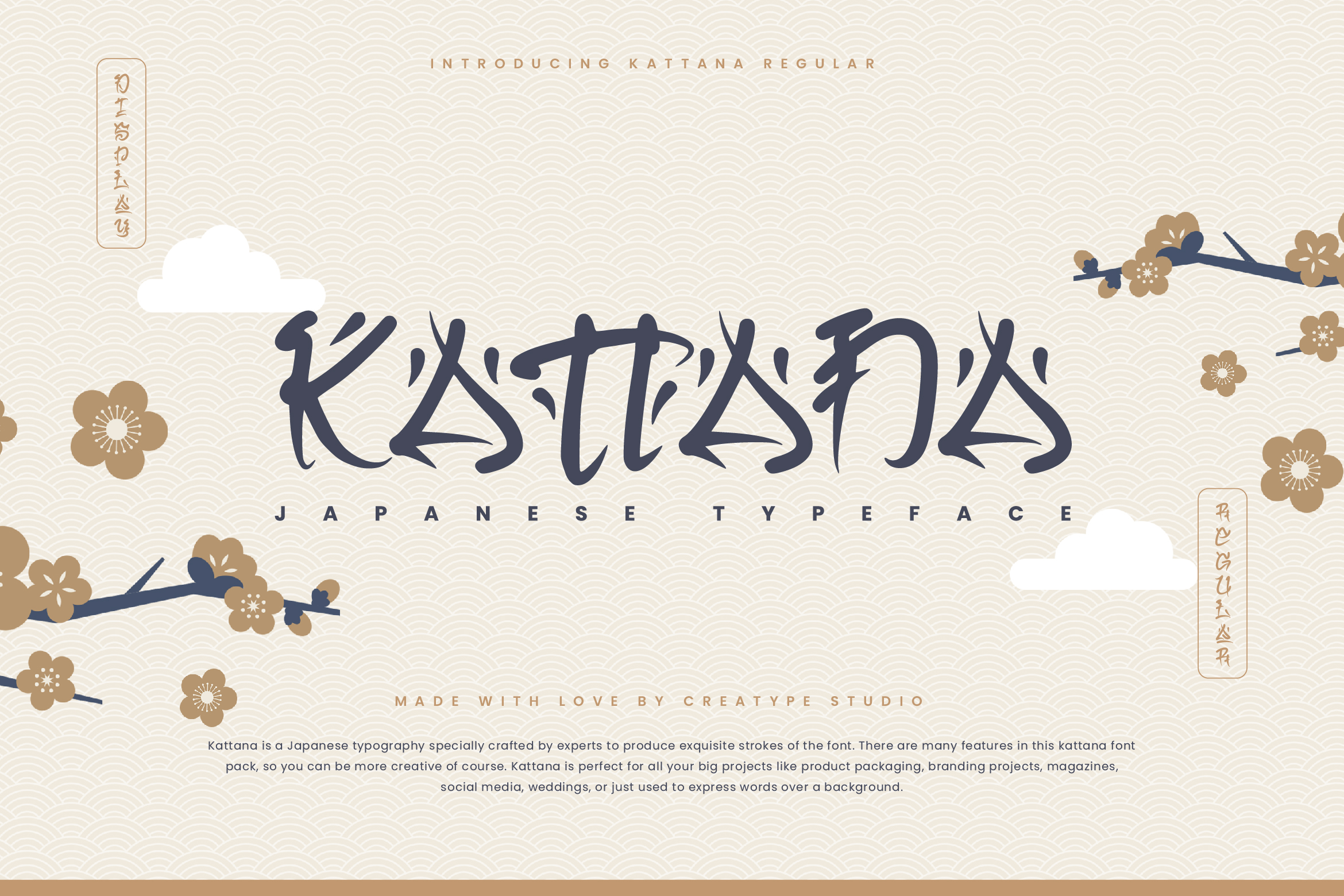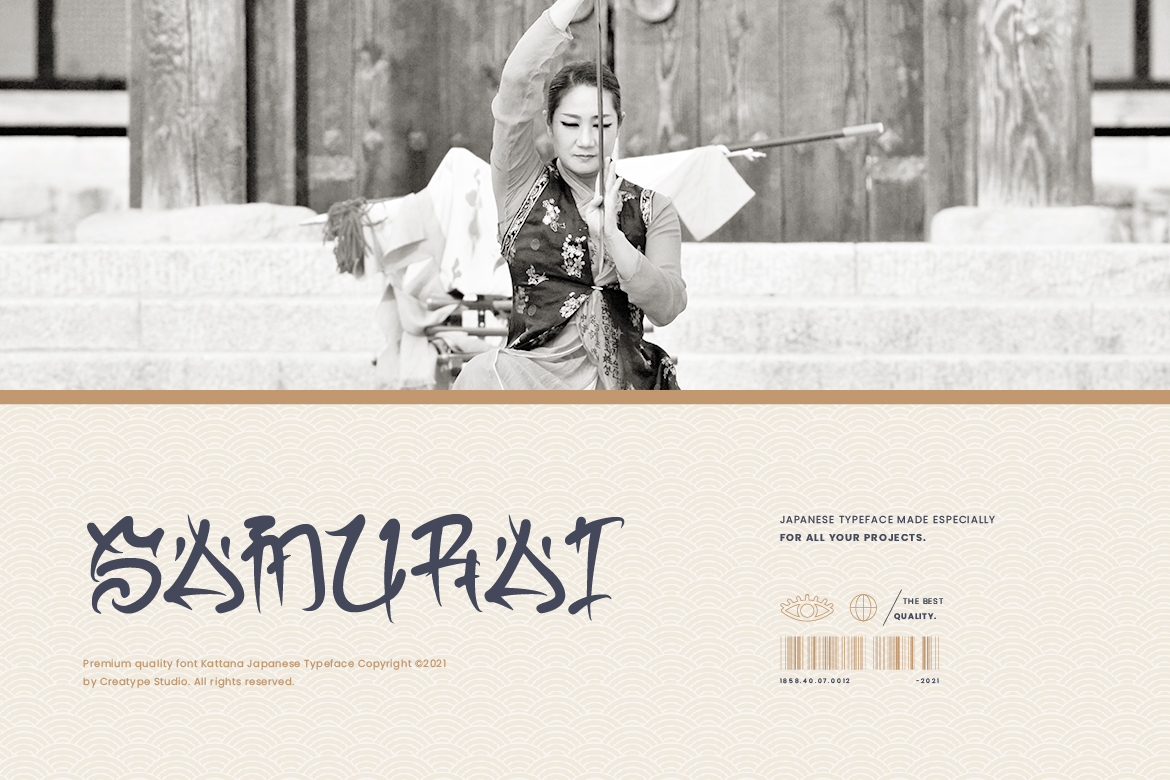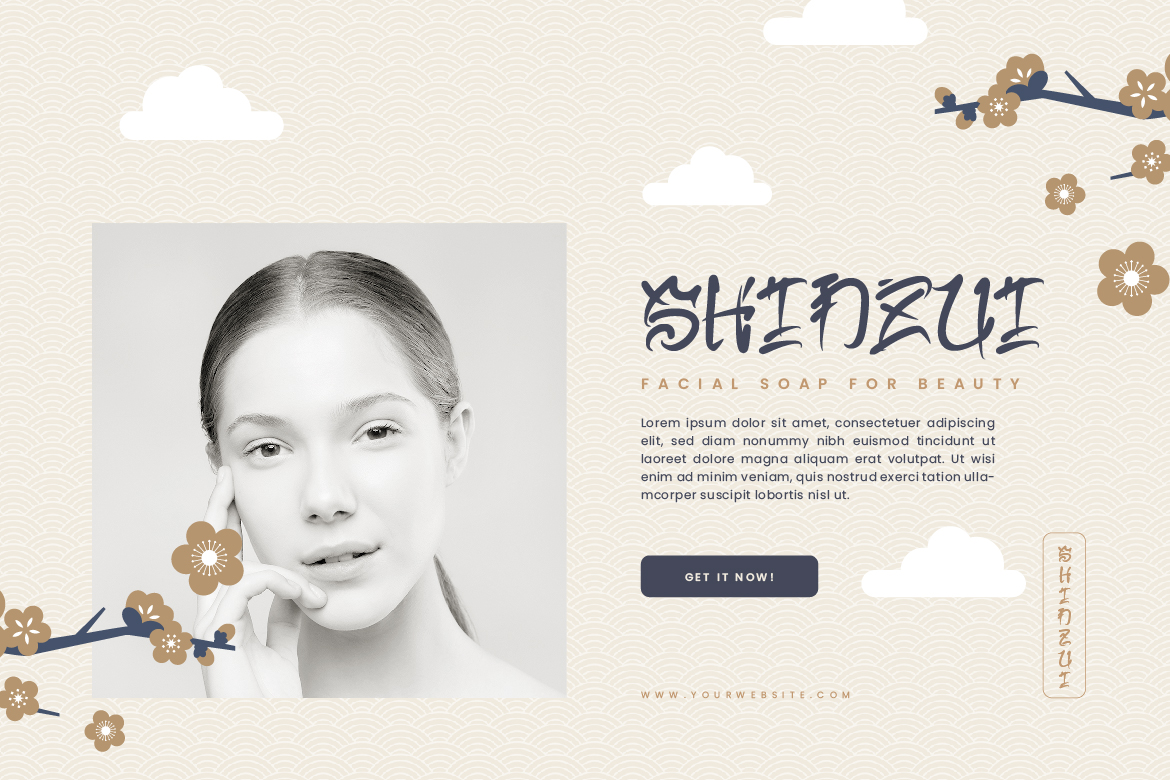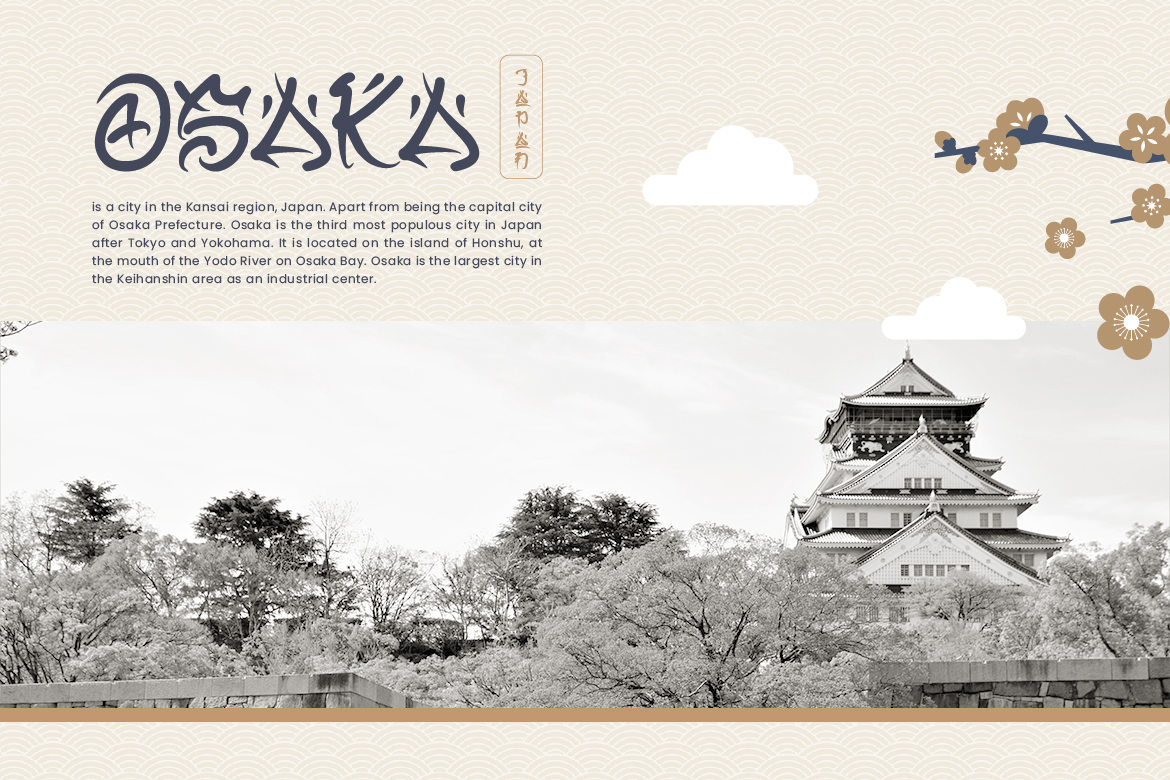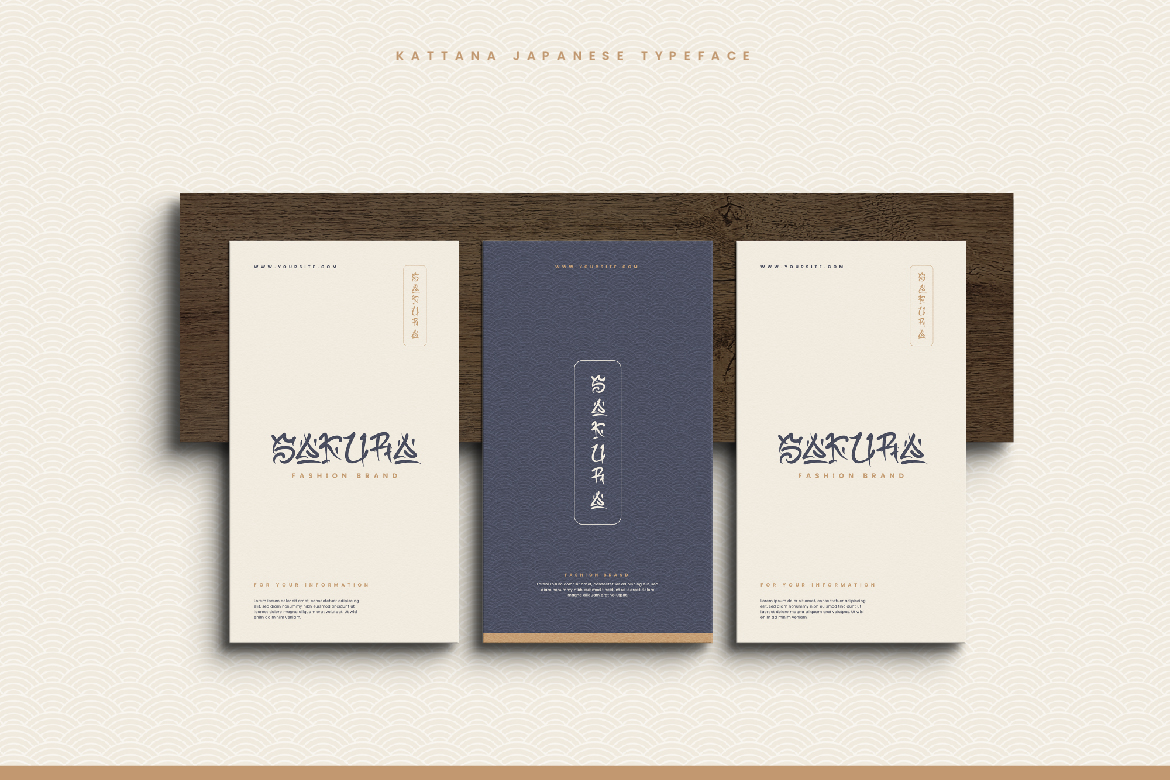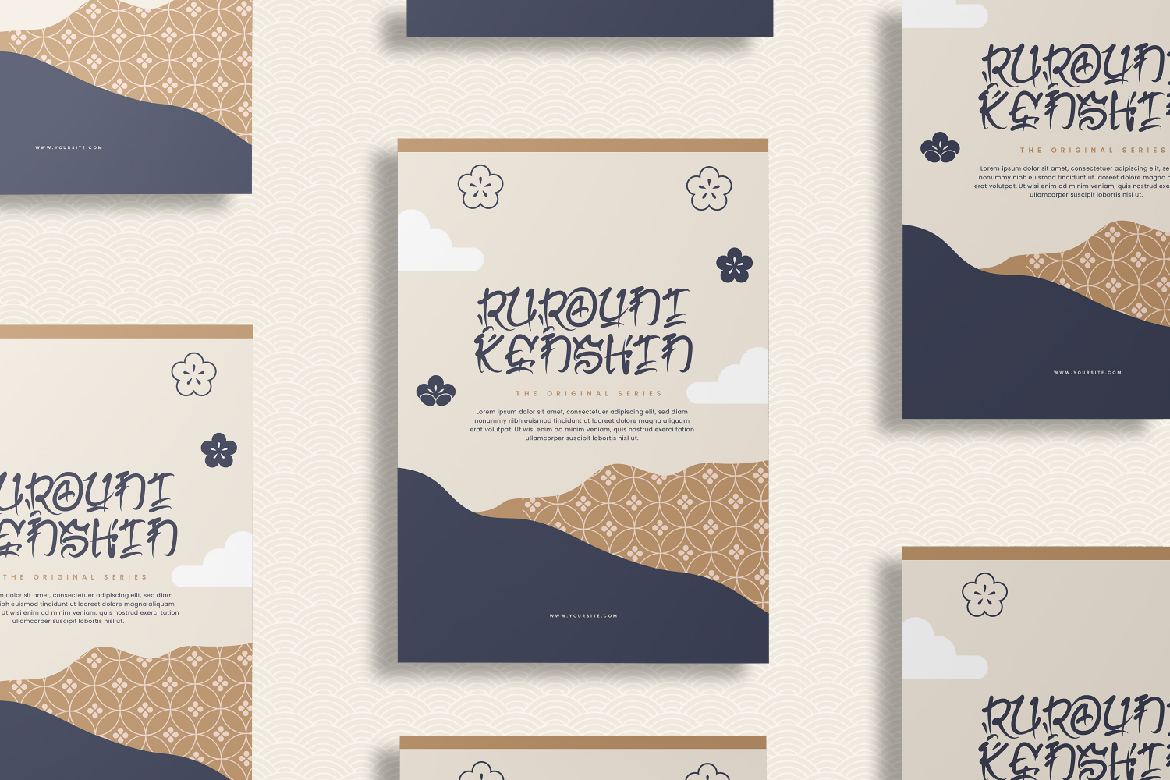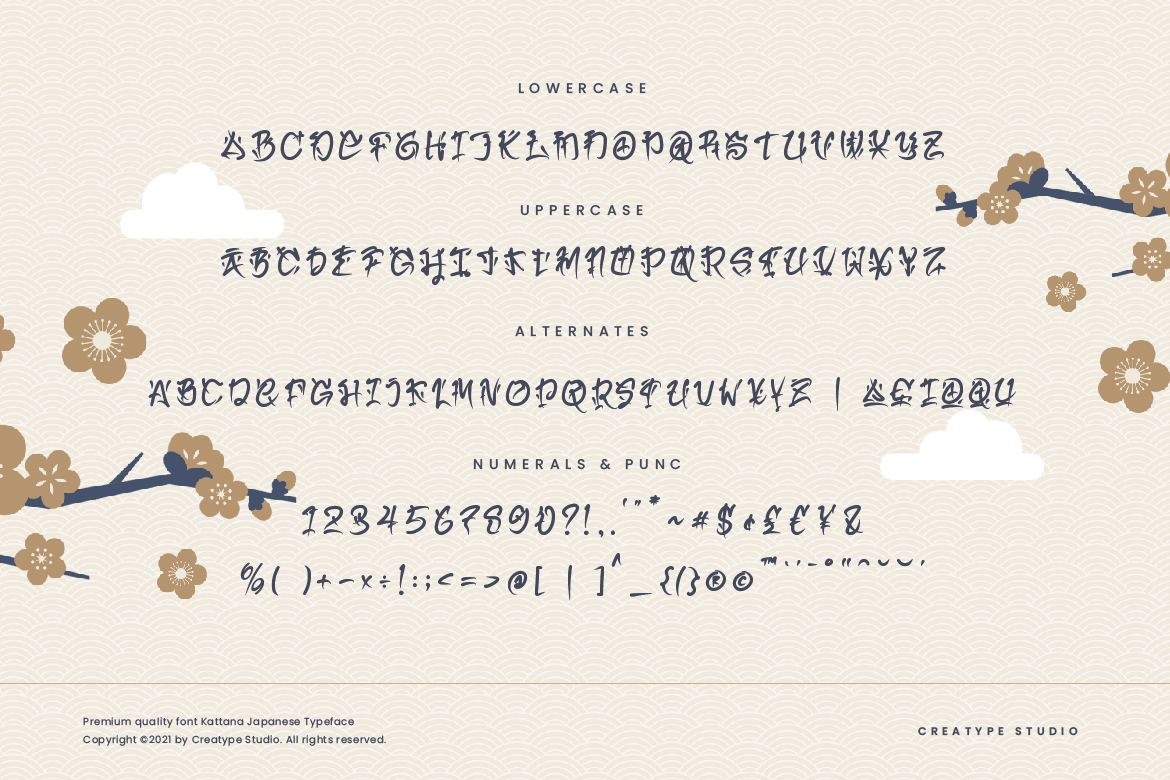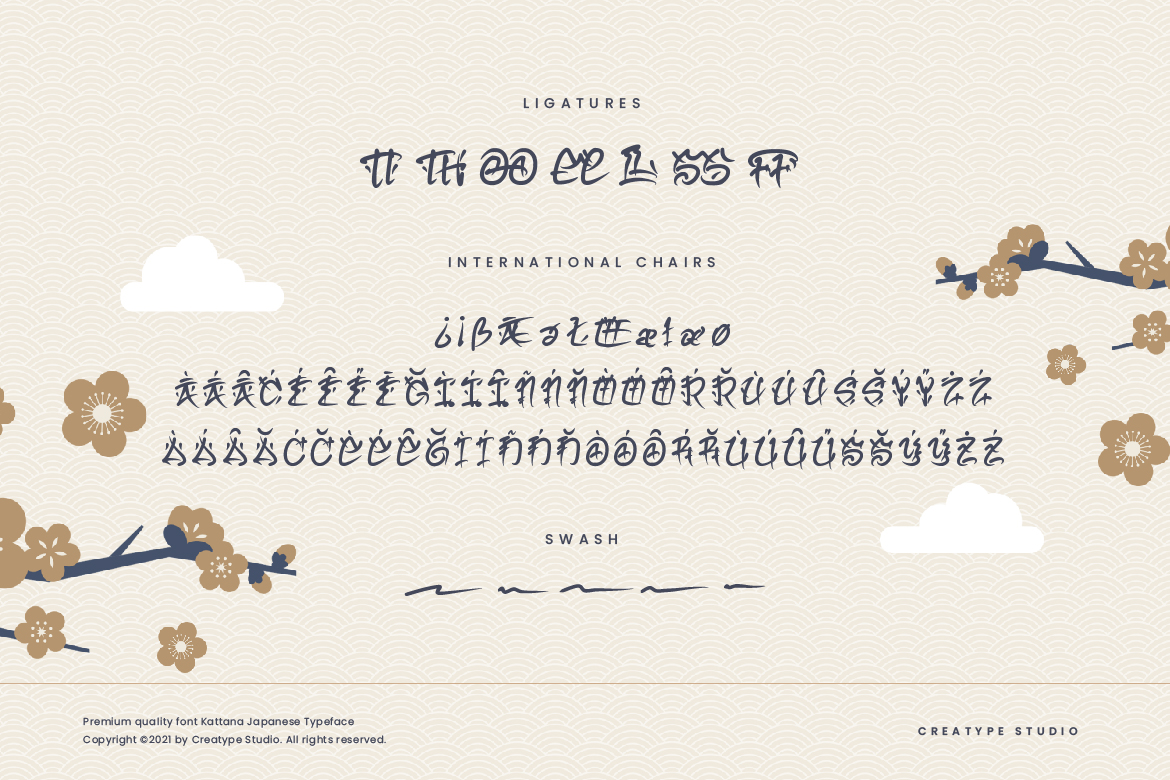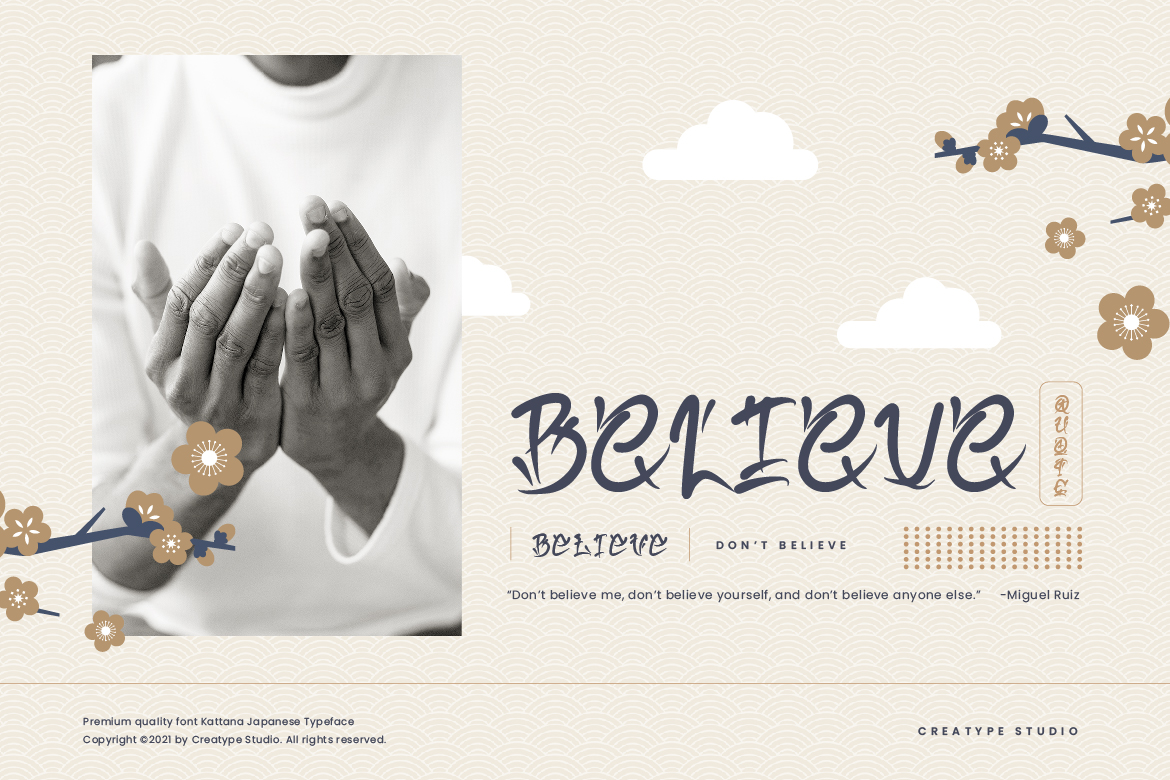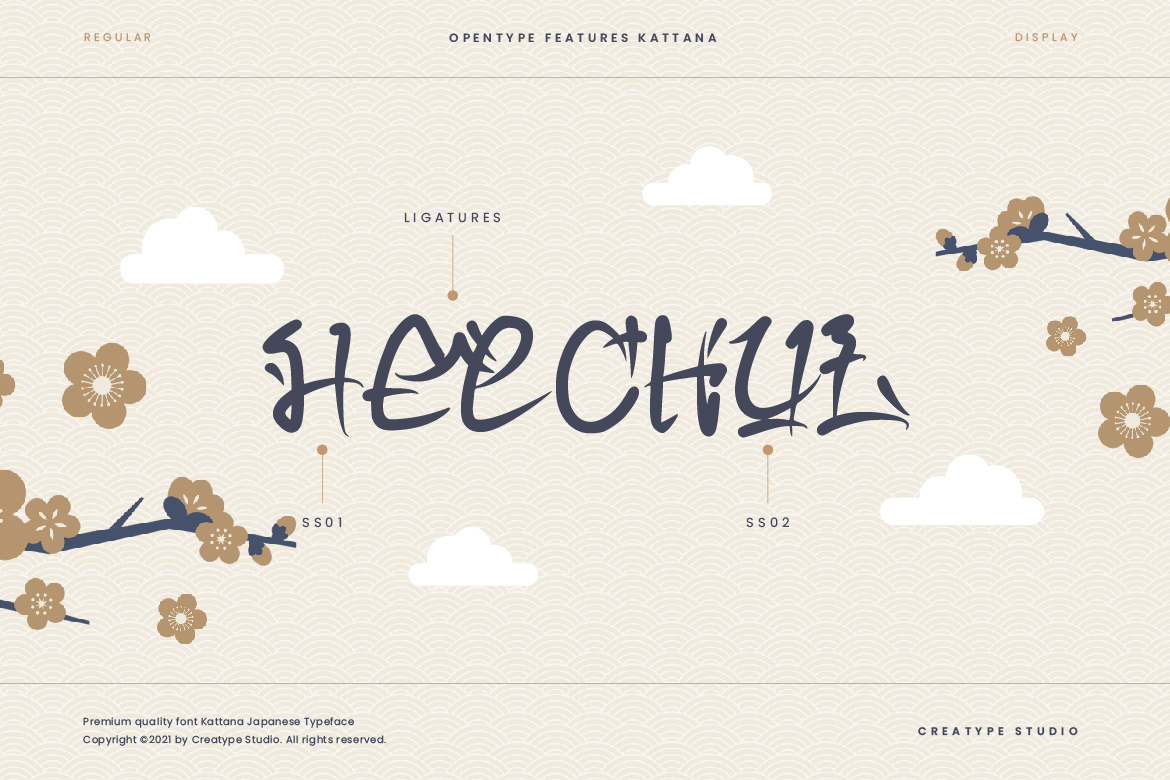
Kattana is a Japanese typography specially crafted by experts to produce exquisite strokes of the font. There are many features in this kattana font pack, so you can be more creative of course. Kattana is perfect for all your big projects like product packaging, branding projects, magazines, social media, weddings, or just used to express words over a background.
Kattana is perfect for branding projects, logo, wedding designs, social media posts, advertisements, product packaging, product designs, label, photography, watermark, invitation, stationery and any projects that need handwriting taste.
Kattana Japanese Style